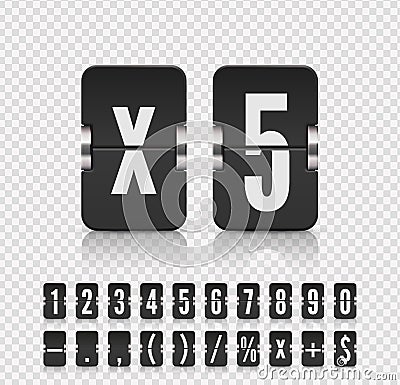
Vector Illustration Template. Flip Number And Symbol Scoreboard On Transparent Background. Analog Countdown Number Font
Vector illustration template. Flip number and symbol scoreboard on transparent background. Analog countdown number font #214697154
Vector illustration template. Flip number and symbol scoreboard with reflections on transparent background. Analog black countdown timer number font.